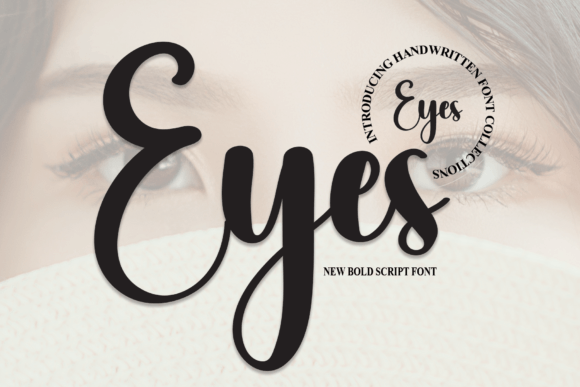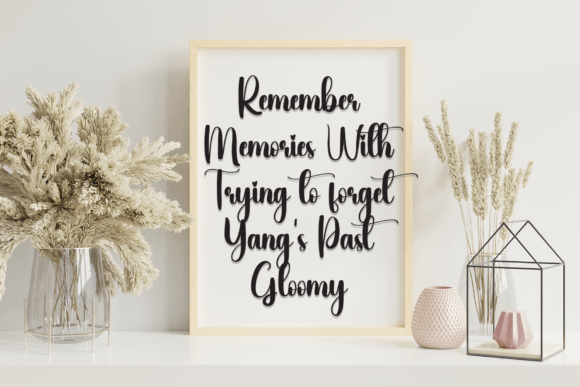
Add a Natural Touch with Eyes Handwritten Font
The Eyes Handwritten Font is a casual, stylish script designed to bring a personal and creative vibe to all your design projects. With its natural hand-drawn look and relaxed feel, this font is ideal for designers who want to inject warmth and authenticity into their work.
Ideal for Crafts, Cards, and Digital Designs
Whether you’re crafting greeting cards, preparing digital presentations, or designing fun social media graphics, Eyes is a versatile choice. It offers a laid-back yet polished appearance, perfect for quotes, labels, journals, and branding elements.
Its versatility also makes it a go-to font for teachers, DIY creators, and small business owners who want to convey friendliness and creativity in their visual content.
A Friendly Script That Feels Personal and Playful
The beauty of the Eyes Handwritten Font lies in its easygoing style. The smooth, slightly bouncy strokes emulate real handwriting, which gives every word a personal and inviting look. This human touch helps your designs feel more genuine and emotionally engaging.
Despite its handwritten nature, Eyes is designed for clarity and ease of use. It performs well across sizes, ensuring that your text remains legible whether it’s used in a headline, logo, or body copy.
Suitable for Print and Digital Use Alike
Eyes maintains its character across both print and digital applications. From printable planner pages and invitations to Instagram posts and website headers, this font stays crisp, clean, and expressive at any size.
You can easily pair Eyes with minimalist serif or sans-serif fonts to create contrast and visual hierarchy. Whether you use it as the main script or an accent font, it’s sure to elevate your design.
Why Choose Eyes Handwritten Font?
Cool, casual handwritten style with modern charm
Ideal for crafts, cards, branding, and digital content
Readable and clean at all sizes
Adds personality, warmth, and friendliness
Great for both personal and professional projects
Bring Your Designs to Life with a Handwritten Feel
In conclusion, the Eyes Handwritten Font is a stylish and easygoing typeface that makes any project feel more personal and lively. Whether you’re creating printables, social posts, packaging, or promotional content, Eyes helps your message stand out in a fun and friendly way.
If you’re looking for a handwritten font that blends casual charm with creative versatility, Eyes is the perfect fit.